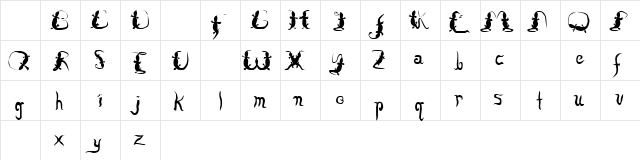
Lizzard Normal
Design Context for Lizzard Typeface
Lizzard is a composed and adaptable typeface that performs quietly and consistently across a wide range of design contexts.